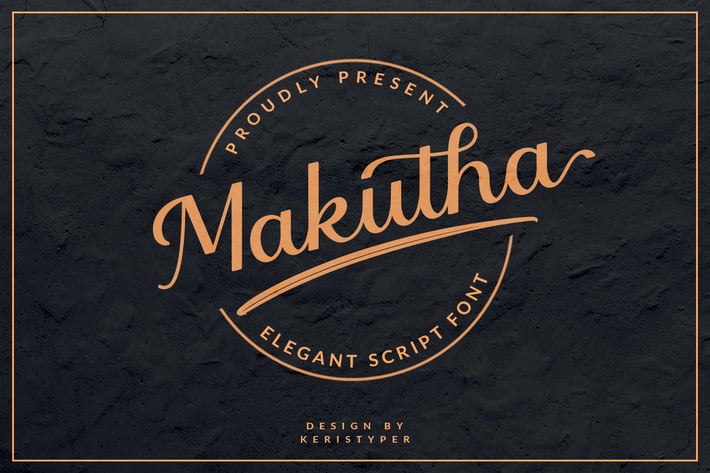
Makutha Script Font
Makutha Script Font is an elegant script typeface. Designed primarily as a captivating handcrafted with style. This typeface is easy on the eyes font that excels at captivating headlines, or branding.